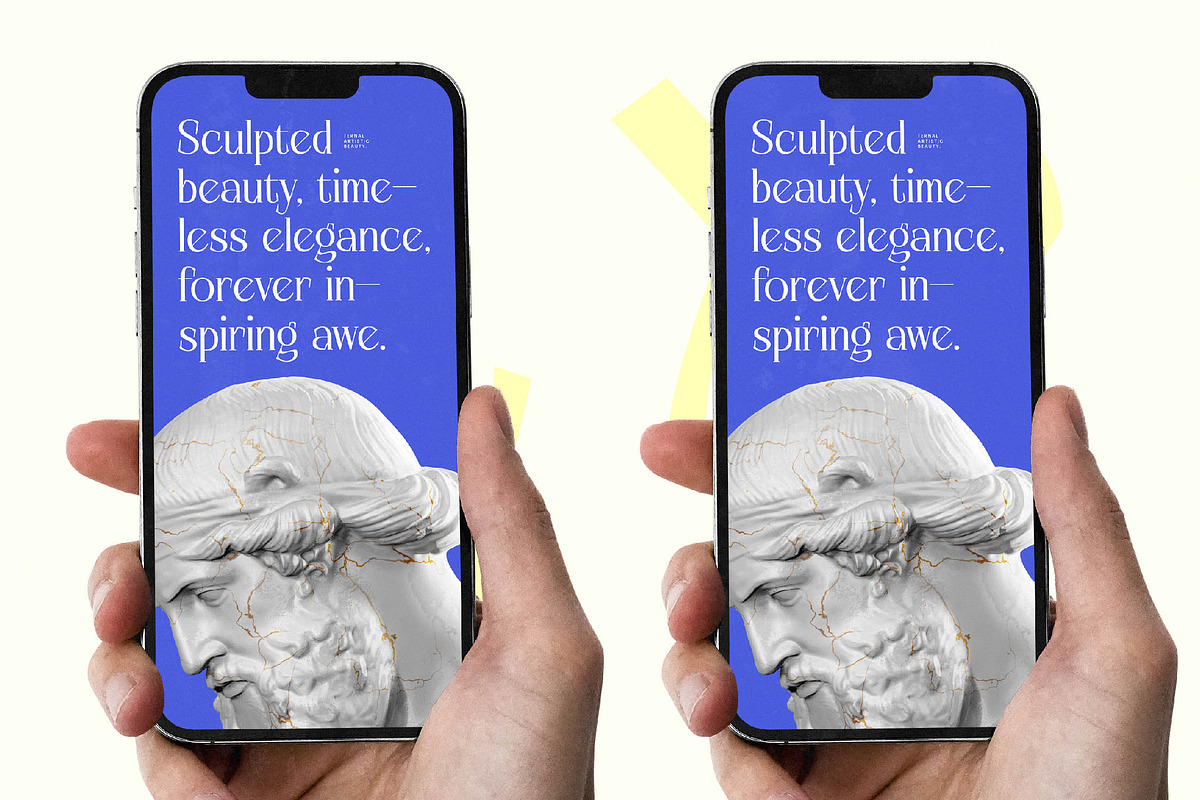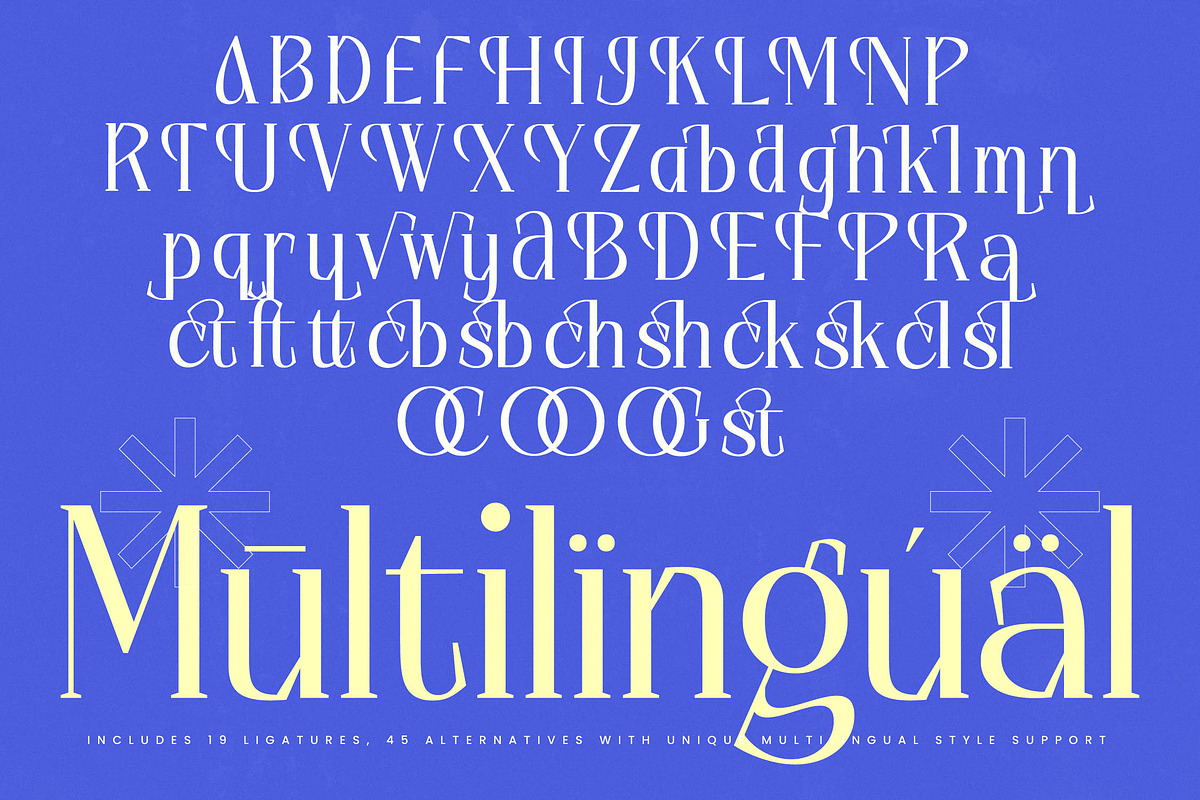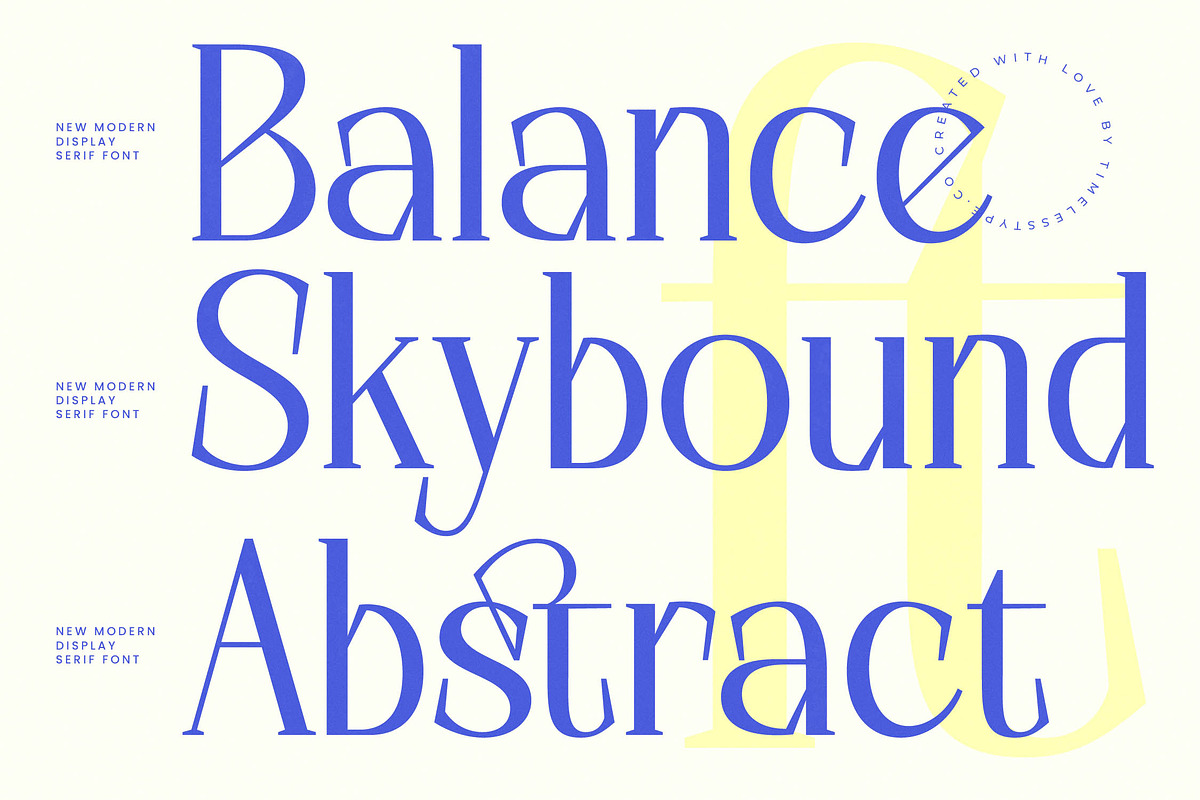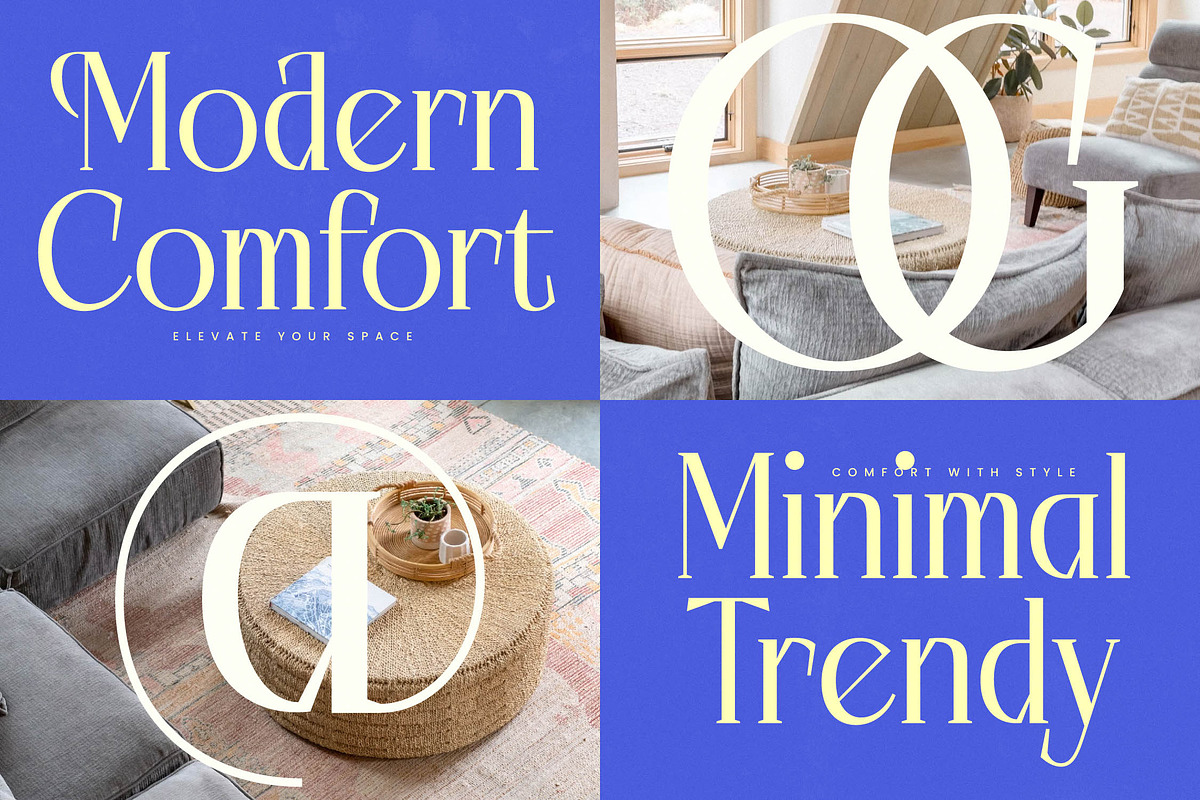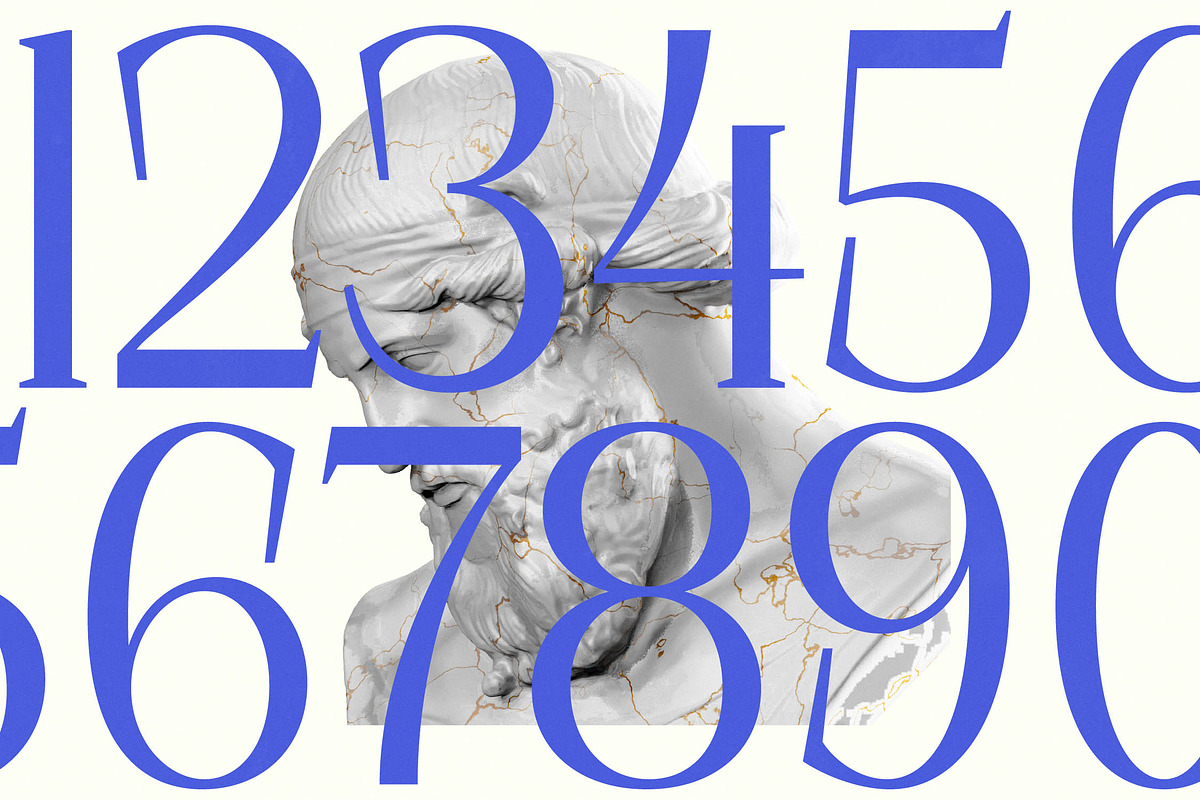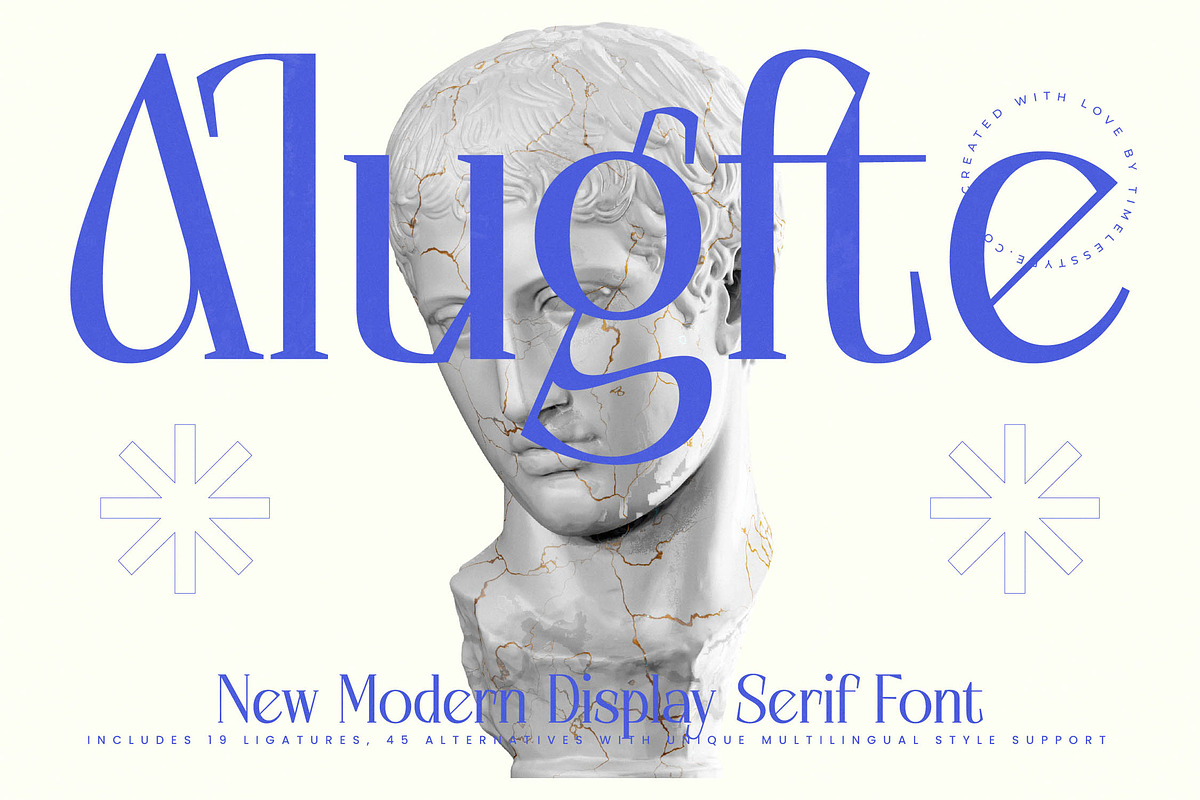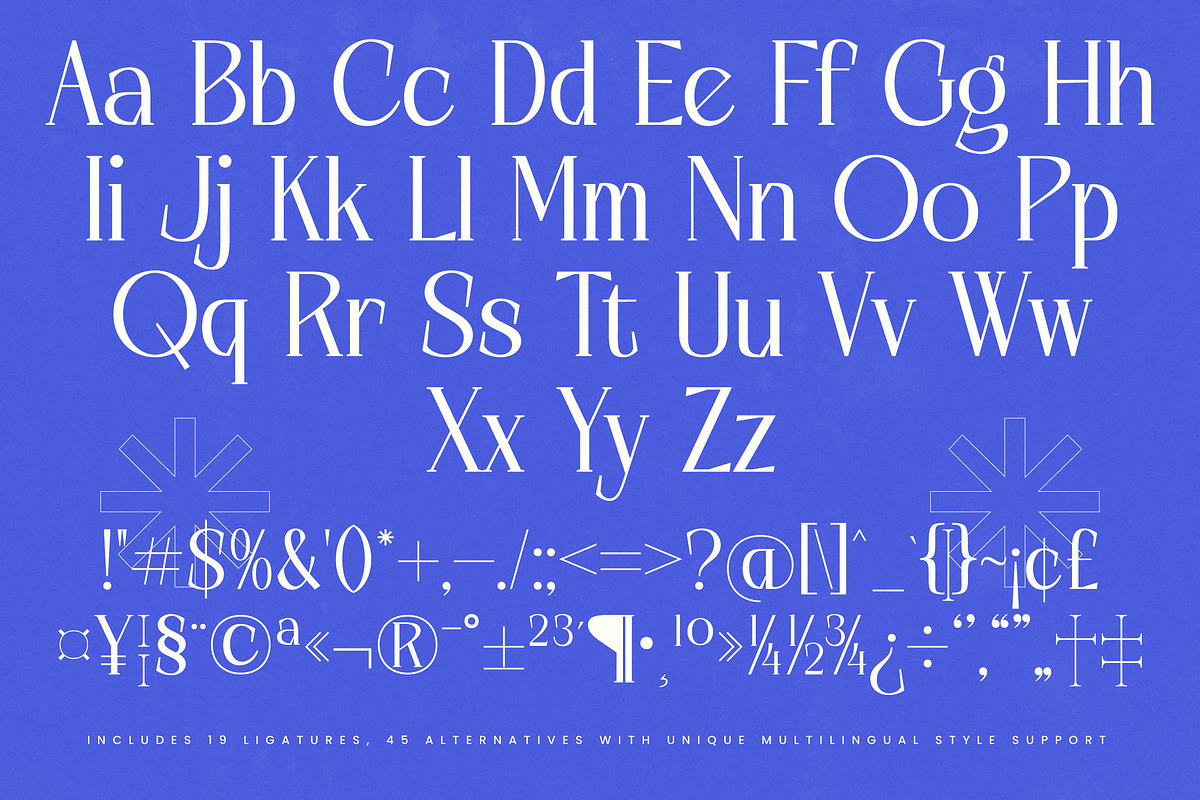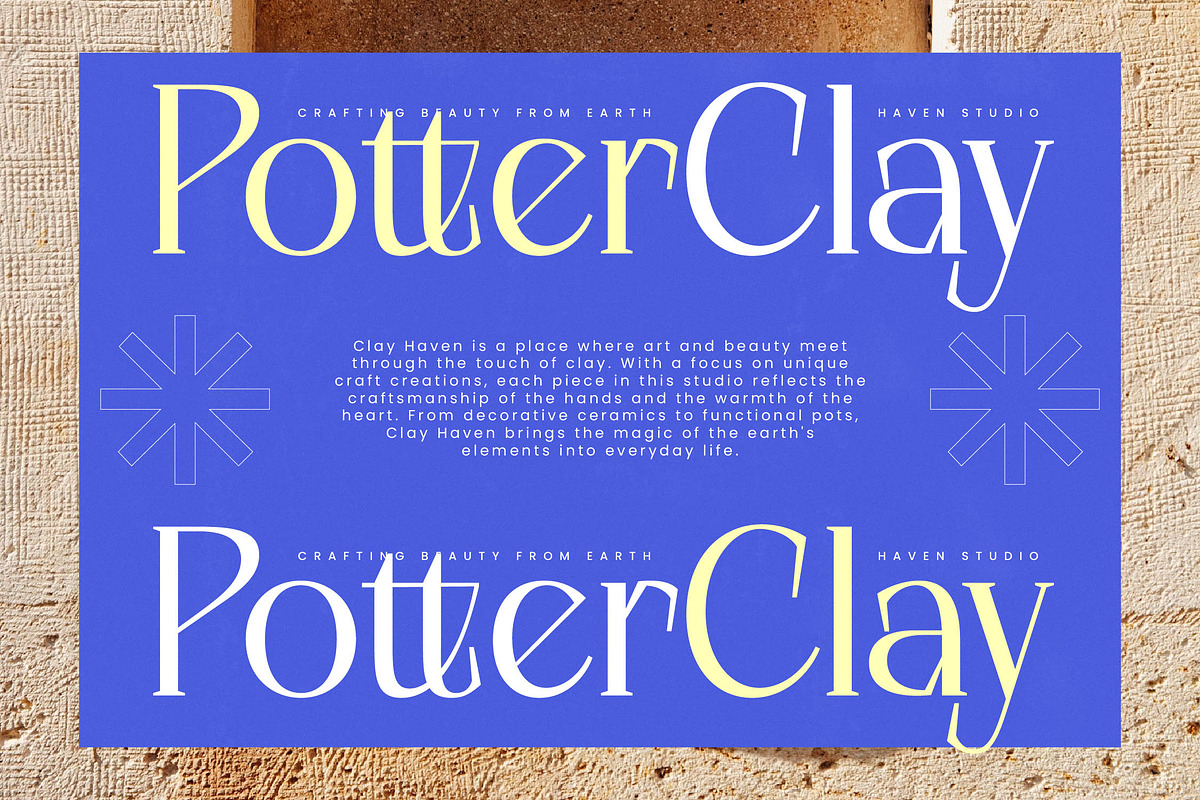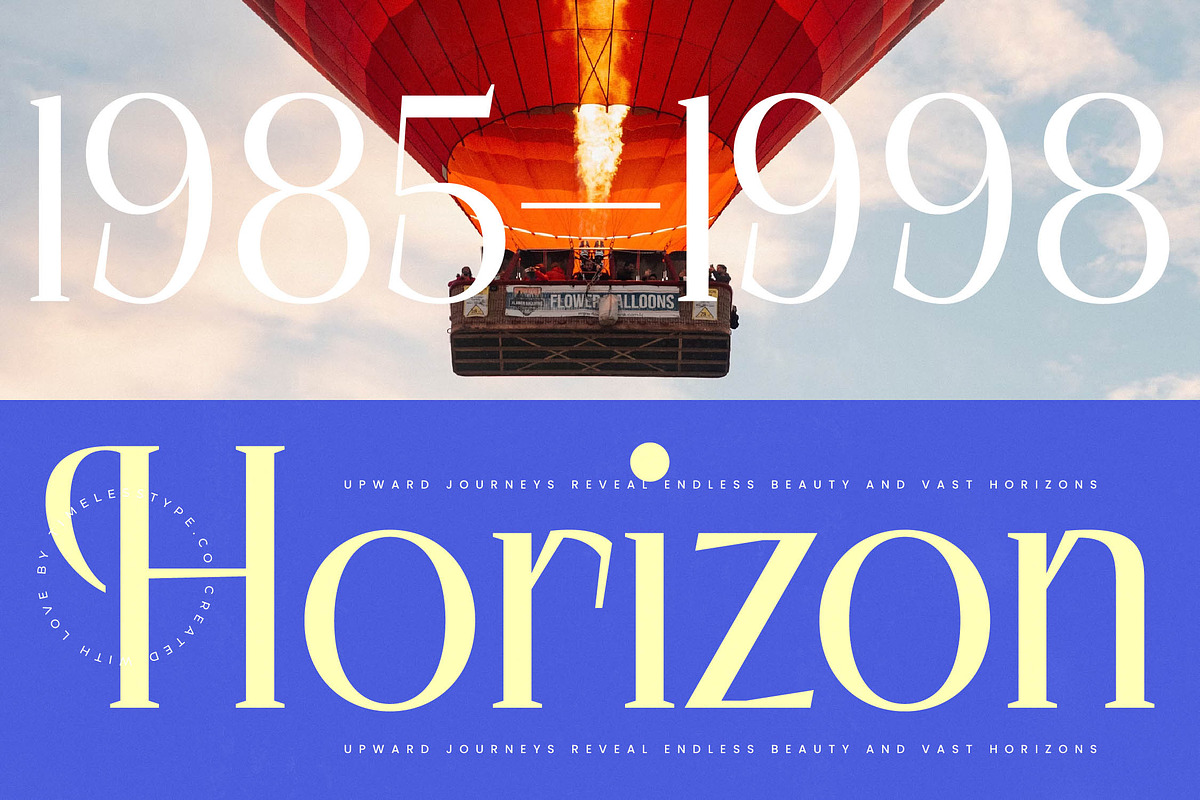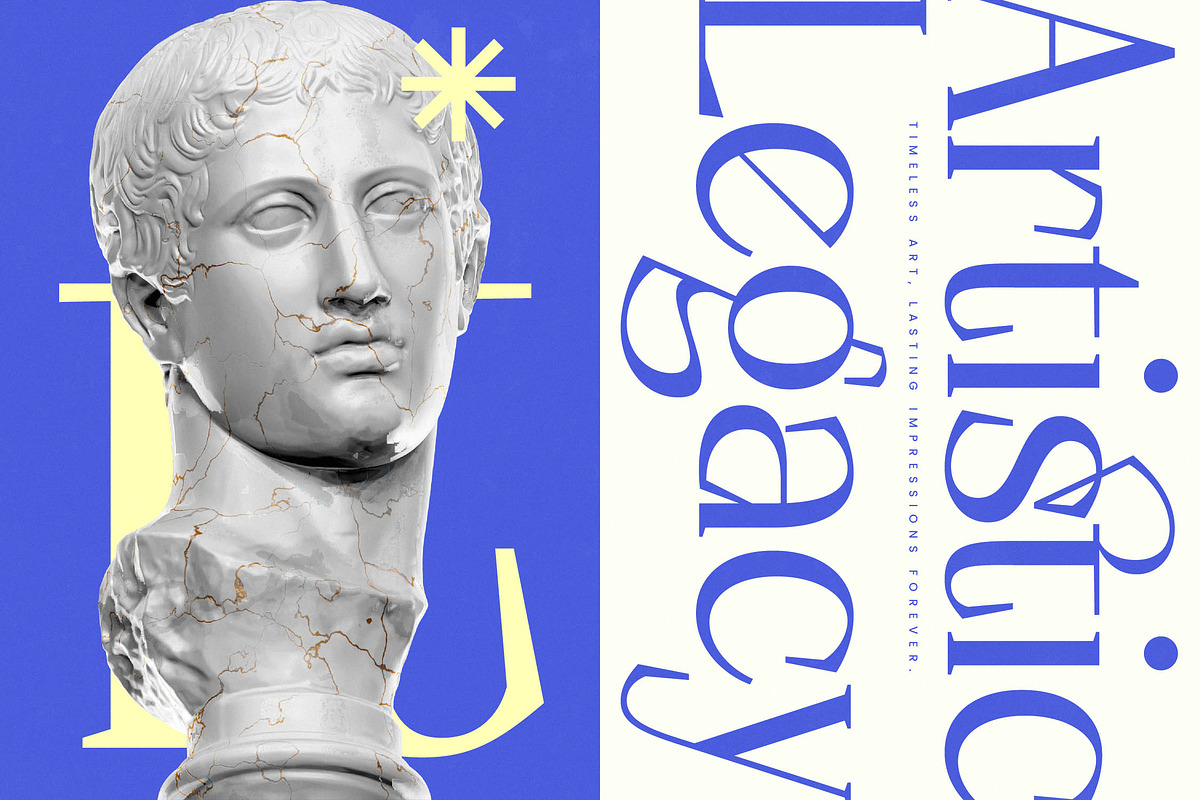
Alugfte Modern Display Serif
Elevate your visual storytelling with the striking elegance of Alugfte, a typeface designed to bridge the gap between classical art and contemporary minimalism. This font offers a sophisticated balance of sharp lines and fluid curves that ensures your headlines command undivided attention.
Drawing deep inspiration from the intersection of neoclassical sculpture and digital precision, the atmosphere of this typeface evokes a sense of marble-carved perfection reimagined for today's high-end design landscape. It is a visual celebration of timeless beauty meets modern utility.
Exuding an aura of pure sophistication, this modern serif display provides an unmatched luxury typography experience for any project. With its high-contrast serif architecture, it delivers a powerful branding impact while maintaining the delicate grace of a high-end editorial font.
Perfectly aligned with the current modern serif trend, this typeface is an essential tool for designers seeking editorial display fonts that stand out from the crowd. It masterfully captures the demand for character-driven typography that feels both heritage-inspired and forward-thinking.
This versatile typeface is the ideal choice for high-end logo design and comprehensive branding projects that require a touch of elite class. From sophisticated editorial layouts and luxury packaging to elegant wedding invitations and fashion lookbooks, it adapts seamlessly to premium environments.
Unlock your creative potential with a vast library of 19 unique ligatures and 45 stylistic alternates that allow for custom letterforms and unique swashes. The font also includes full multilingual support and a comprehensive set of international characters, ensuring your message reaches a global audience with ease.
- Ligature 19 Alternate 45